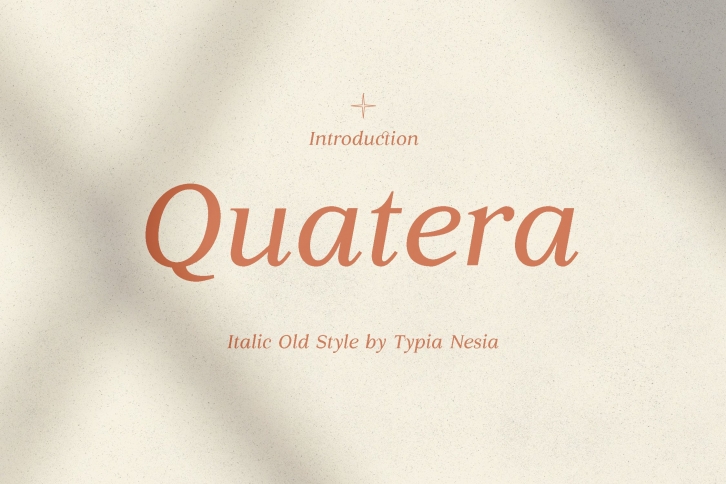
Quatera Italic is a beautiful font that was designed by Typia nesia. It's a great choice for designers and creatives who need such a font. It was released on April 24, 2021 and the file size is 6.34 MB. Quatera Italic may give a more youthful, expressive and casual look to your project. It is a very beautiful, refined, elegant, and high-quality font.